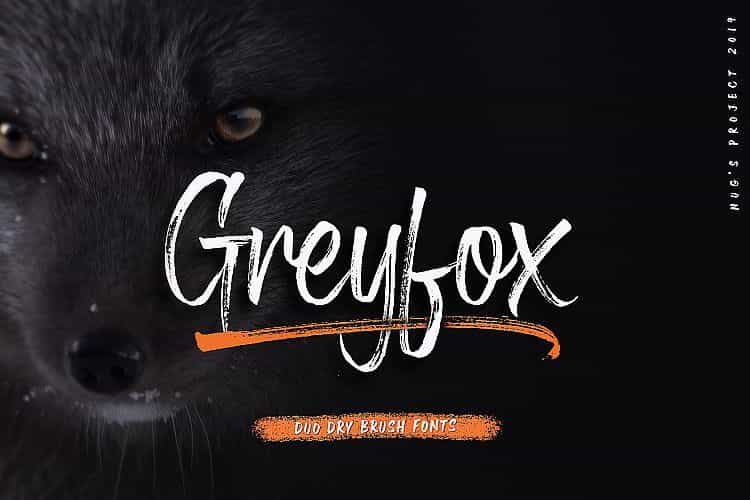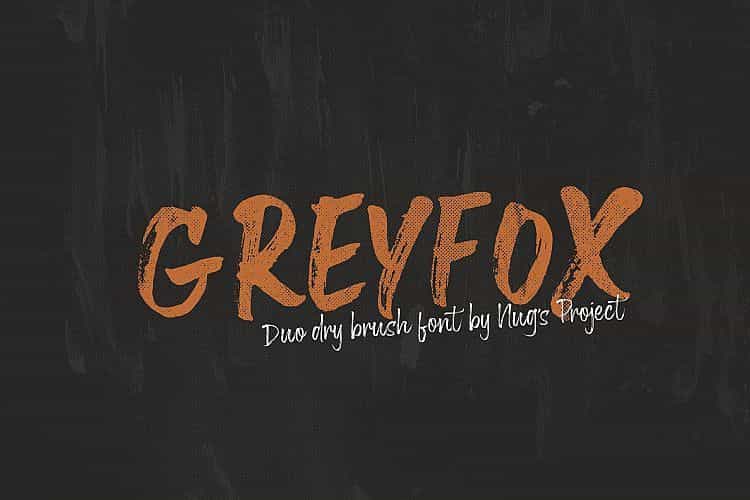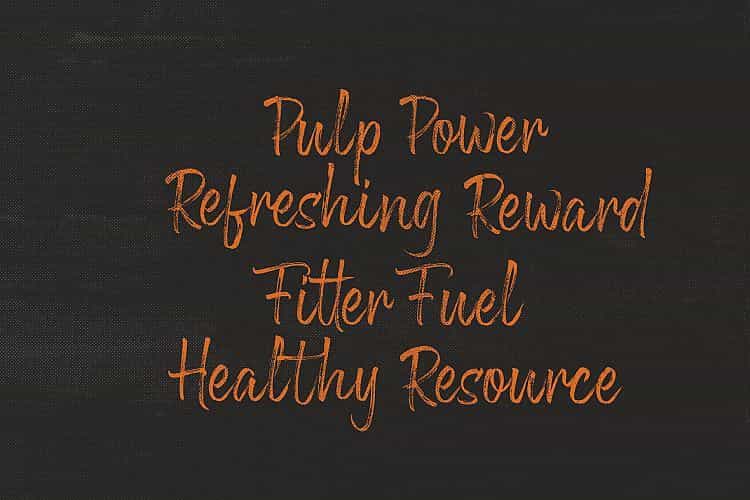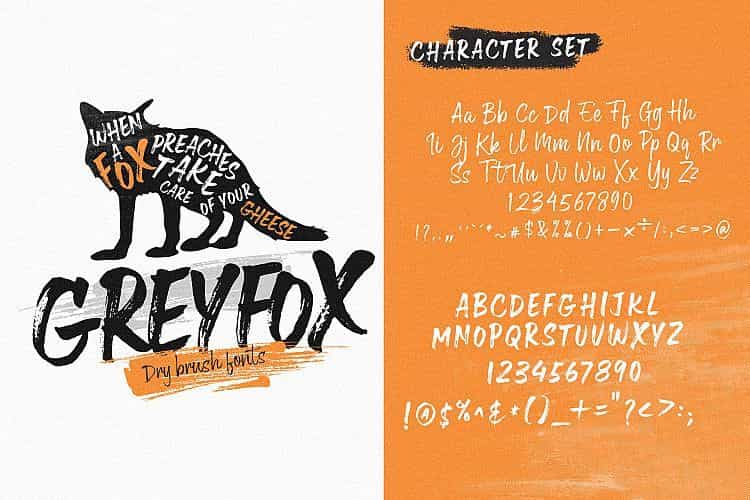
It is a brush font that is handwritten and it is called Greyfox Font. It is a handwritten brush font that has realistic dry brush stroke artefacts applied directly to the paper. The Greyfox Brush font family is suitable for various branding projects, logos, wedding, social media posts, advertising, product packaging, product design, label, photos, watermark, invitation, stationery, and any project that needs handwriting touch.